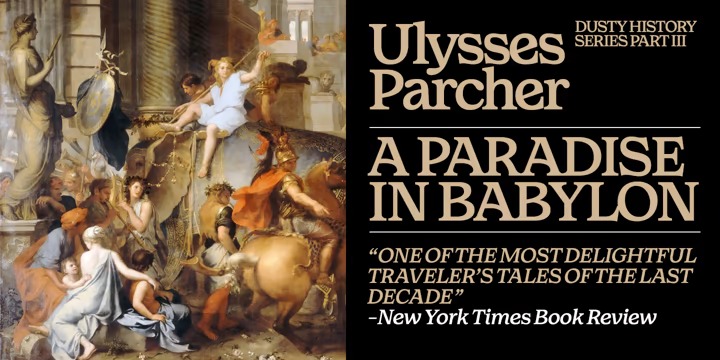
Walden Font Family
Walden Serif Font
This is a serif font with classy style. Apart from being classy, this font also has a modern and unique style. It’s designed and shared by Fenotype. A heavy serif font with a handmade feel, Walden gives a hearty impression.
Despite its rustic appearance, Walden is perfectly adaptable to contemporary use, wherever a bit more character is needed. Decidedly kept simple, these three weights with matching italics is all you need.